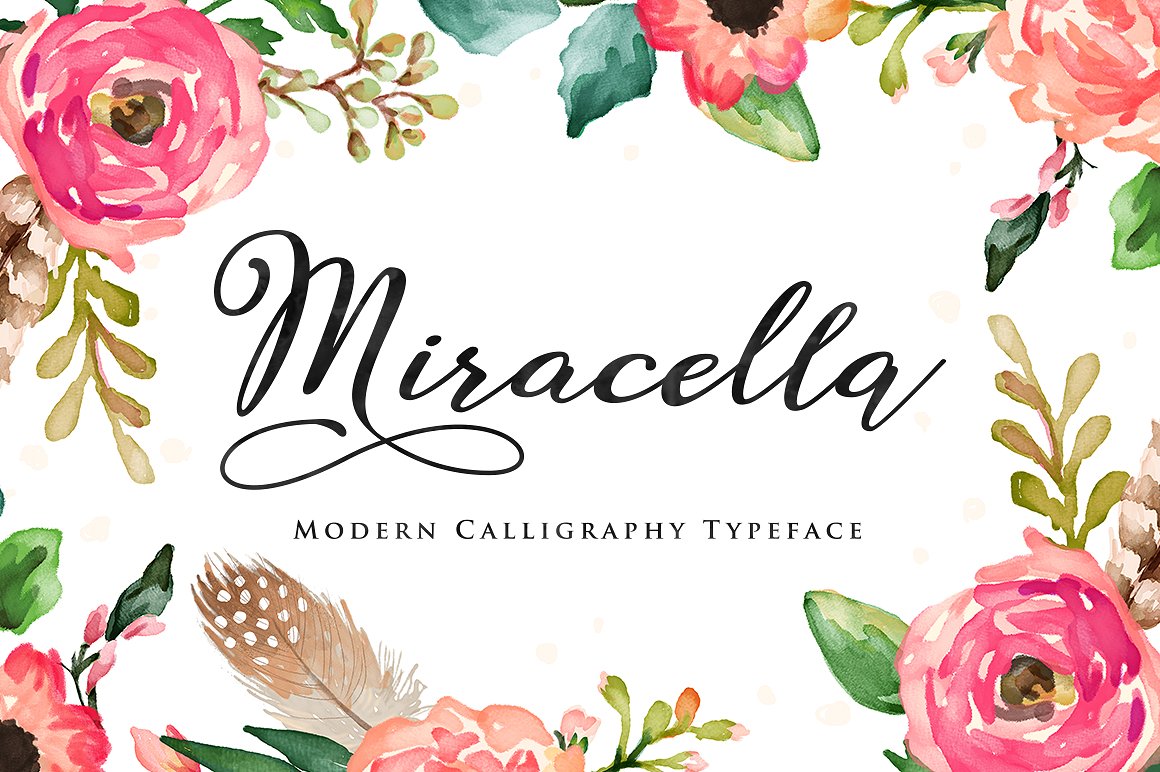
Miracella Script
Miracella Script Font
Miracella Script is a new handwritten stylish copperplate calligraphy fonts, combines from copperplate to contemporary typeface, classic and elegant touch.